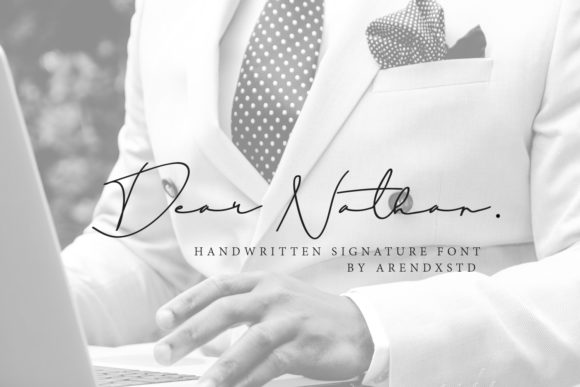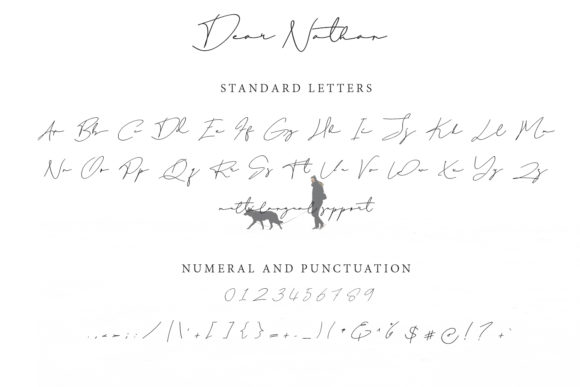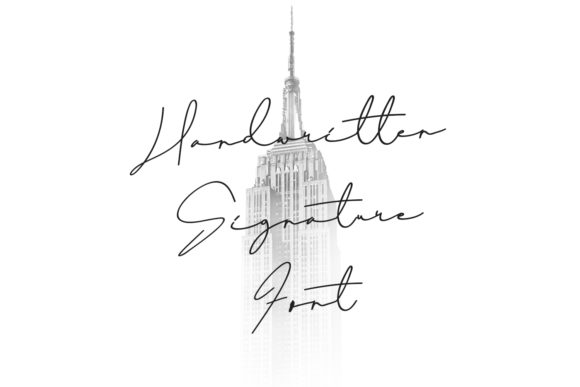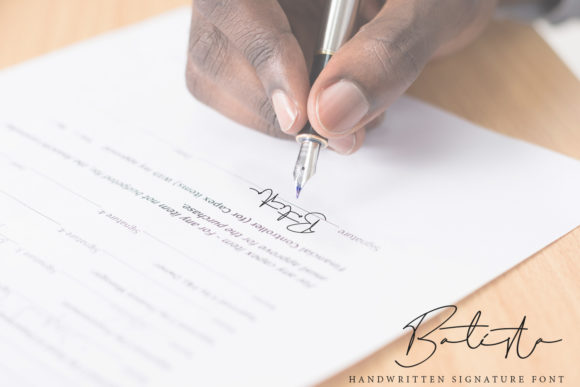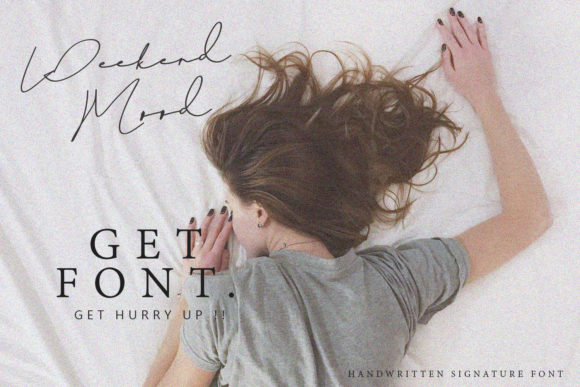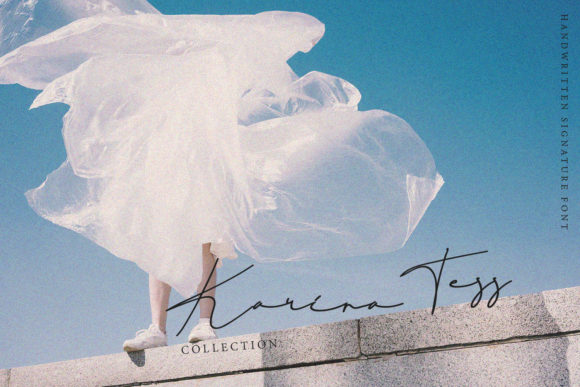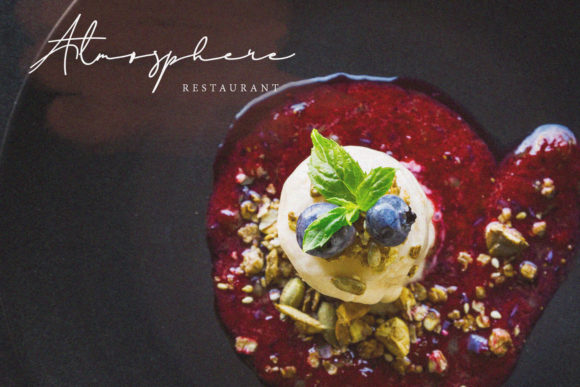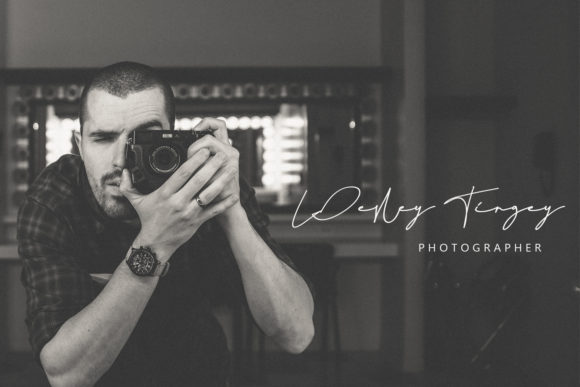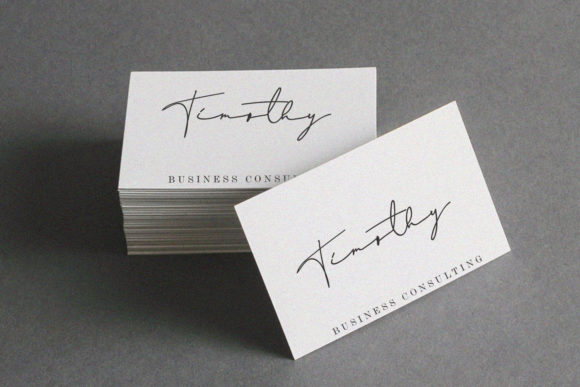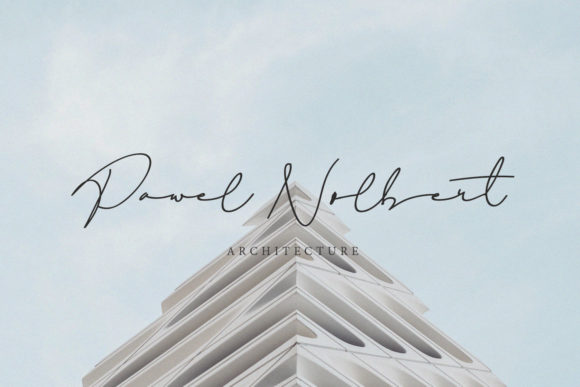
HomeScript FontsDear Nathan Font Script Fonts Dear Nathan Font FacebookXPinterestWhatsApp Dear Nathan Font Poster 2 Dear Nathan Font Poster 3 Dear Nathan Font Poster 4 Dear Nathan Font Poster 5 Dear Nathan Font Poster 6 Dear Nathan Font Poster 7 Dear Nathan Font Poster 8 Dear Nathan Font Poster 9 Dear Nathan Font Poster 10 About Dear Nathan Font Dear Nathan is a sweet and cool handwritten font with a sophisticated feel. DOWNLOAD ON CREATIVE FABRICAThis font is sold and delivered by Creative Fabrica. Font Canyon may earn a commission if you buy through this link. People also explored Homemade Valentine Font Ezekiela Font Moloko Font Holiday Belinda Lovely Font Molokai Font Ballones Font Origami Font Clothing Facktory Font Happy Birth Day Font 324 0 TagsDear Nathan Font Previous articleVarshuma FontNext articleQuetzalli Font LEAVE A REPLY Cancel reply Comment: Please enter your comment! Name:* Please enter your name here Email:* You have entered an incorrect email address! Please enter your email address here Website: Save my name, email, and website in this browser for the next time I comment. Personal Use Free I Am Exceptional Personal Use Free Read more about this font Bakk Trieng Personal Use Free Read more about this font Splatter Splash Personal Use Free Read more about this font Ailand Personal Use Free Read more about this font BLOG Using Fonts in Digital Marketing: Tips to Strengthen Your Brand Identity In the realm of digital marketing, every visual element plays a crucial role in shaping a brand's identity, and fonts are no exception. The... Free vs Paid Fonts: Why Investing in Premium Fonts Is Worth It To increase your work productivity, choose the most readable fonts. Modern Sans-Serif Fonts That Brands Love in 2025